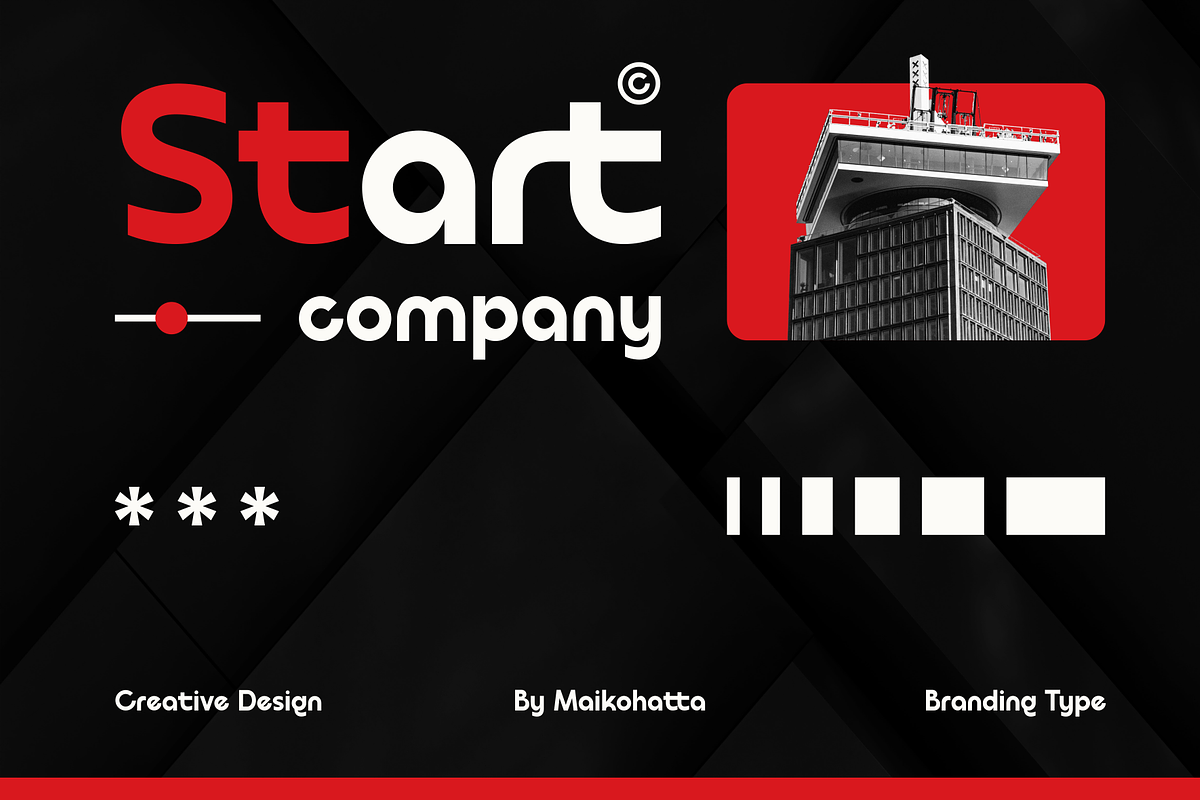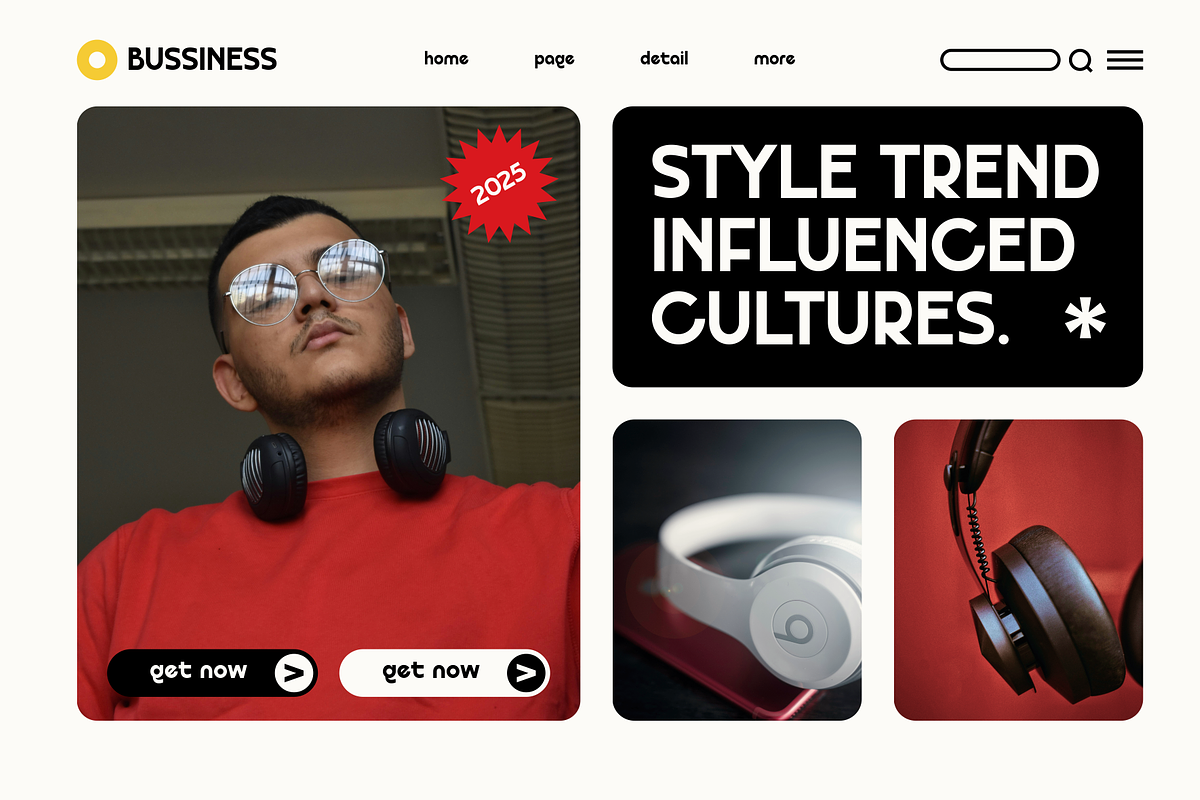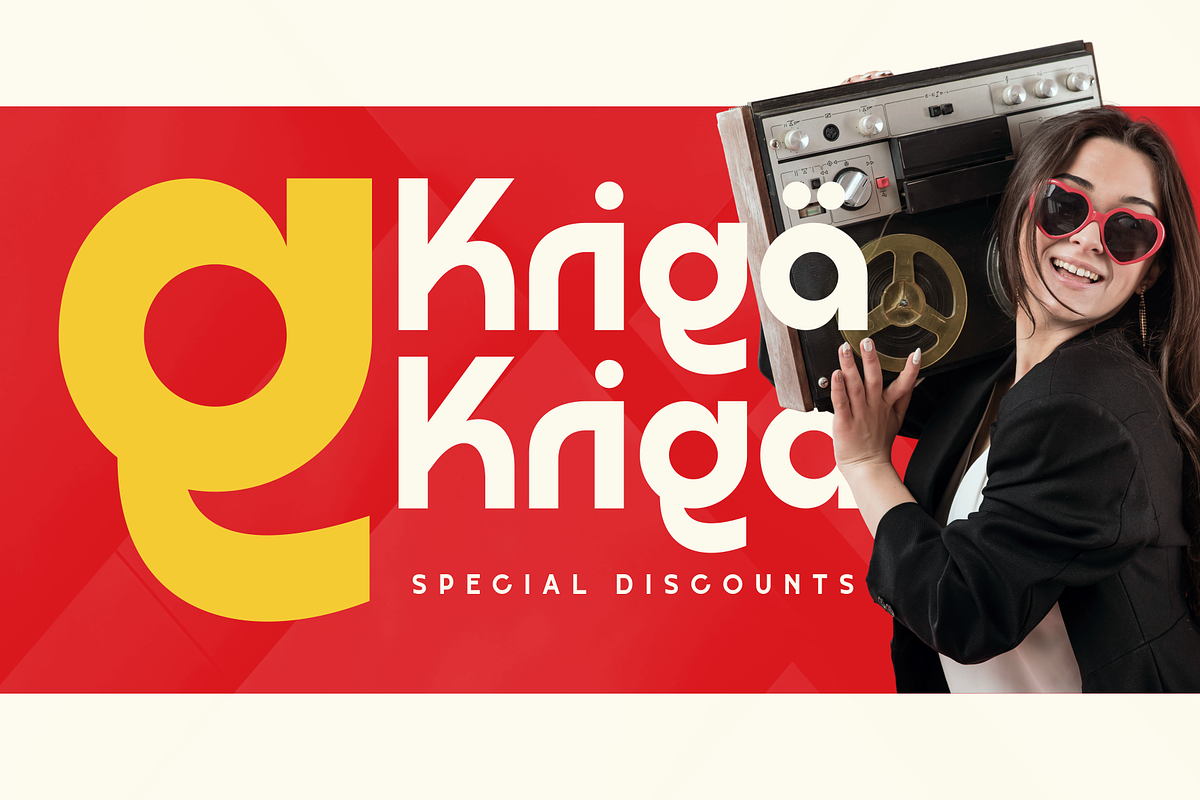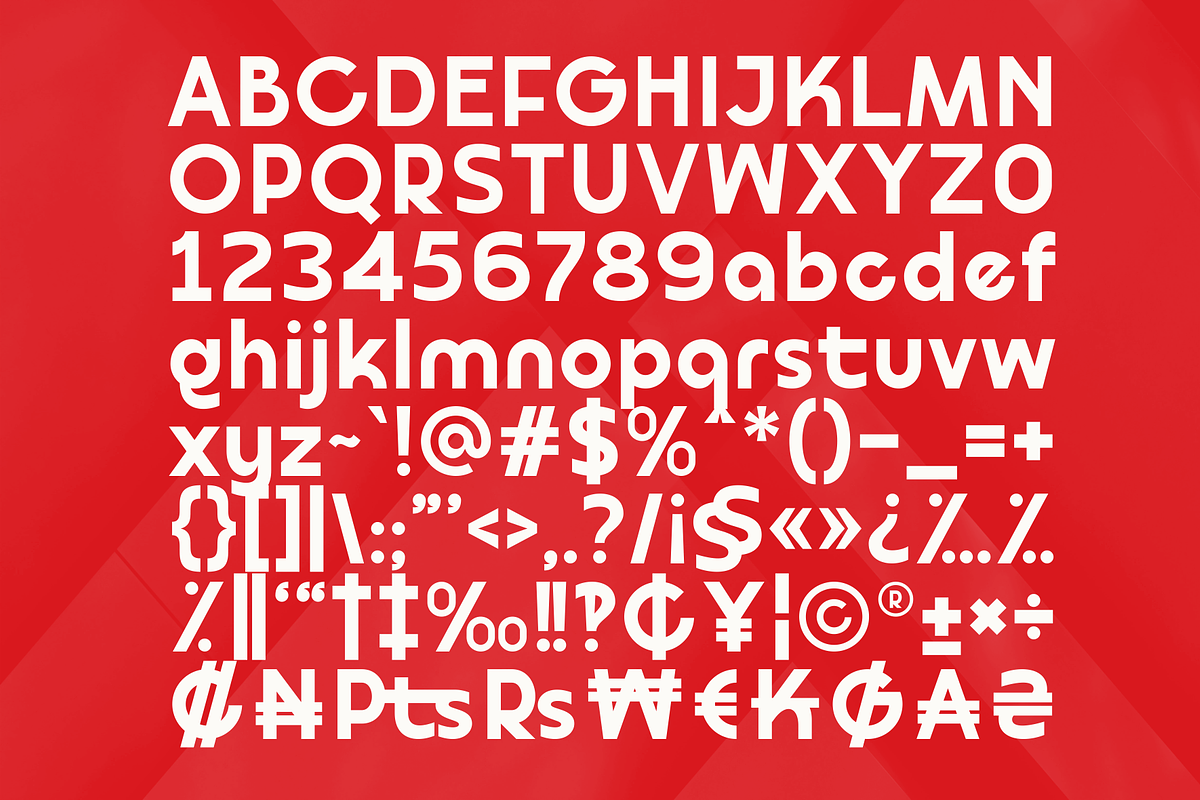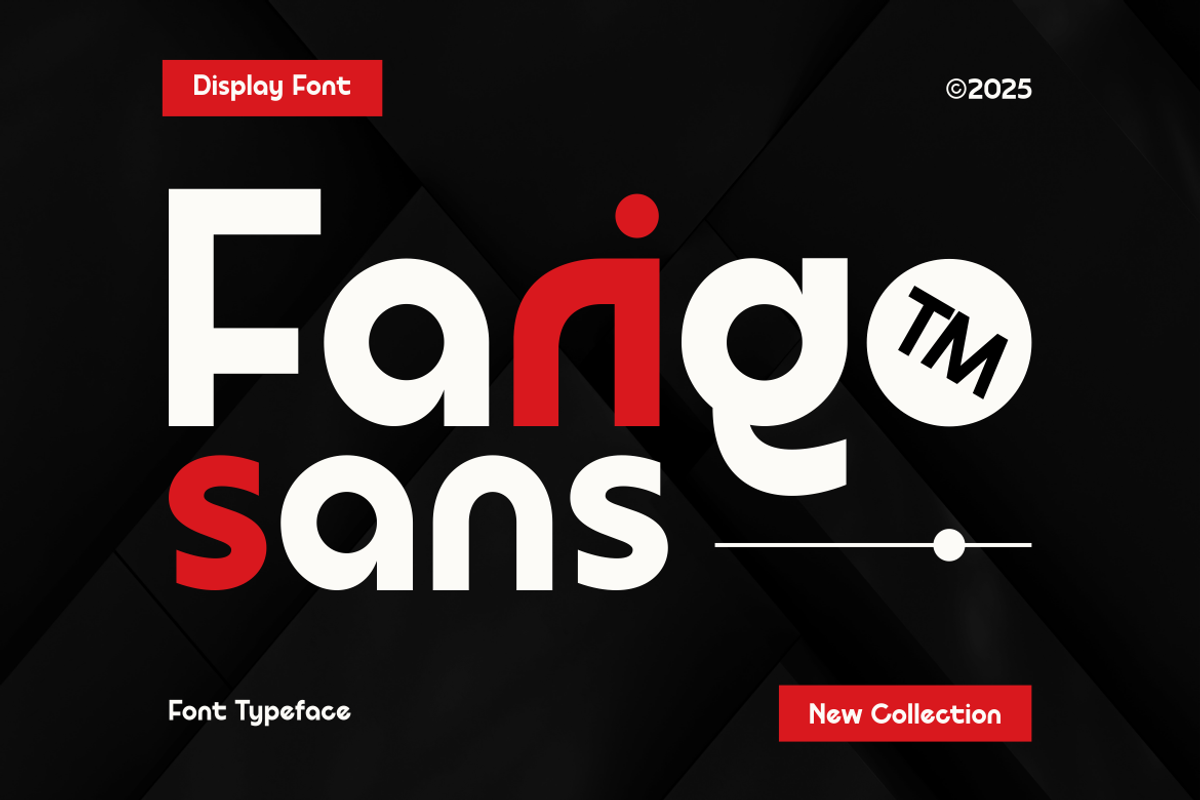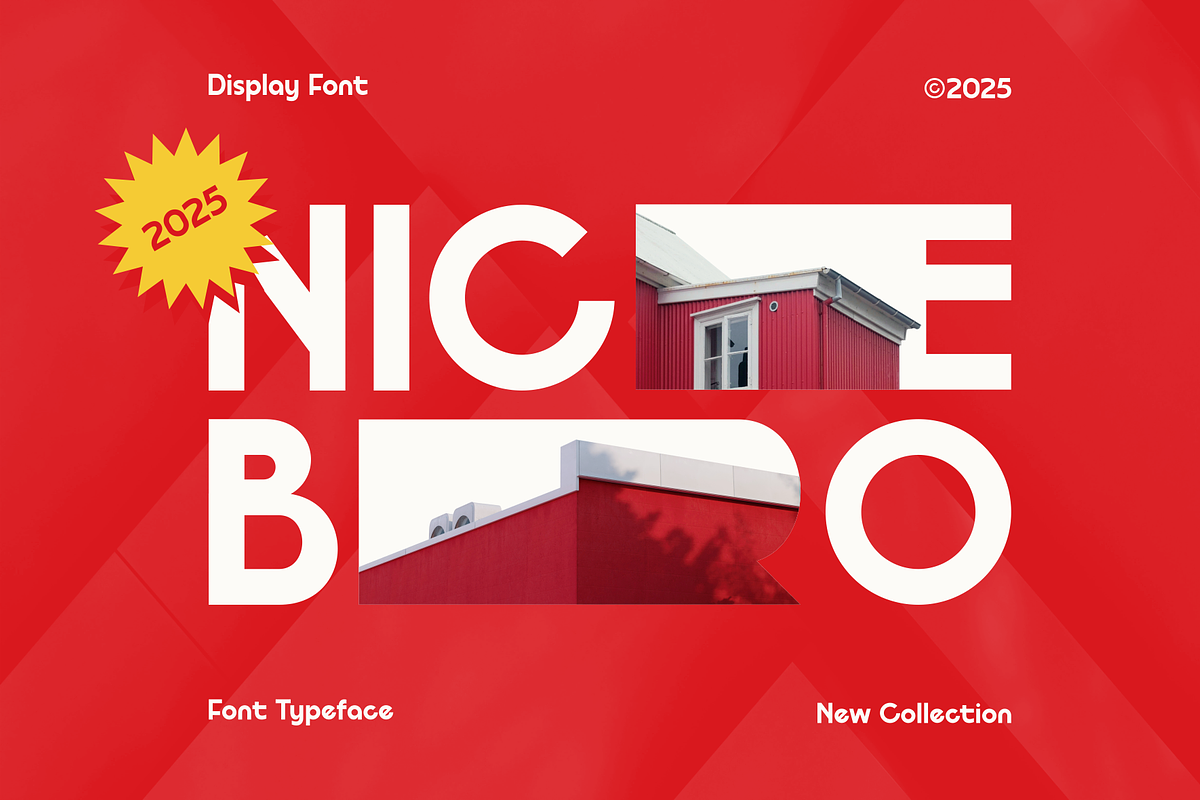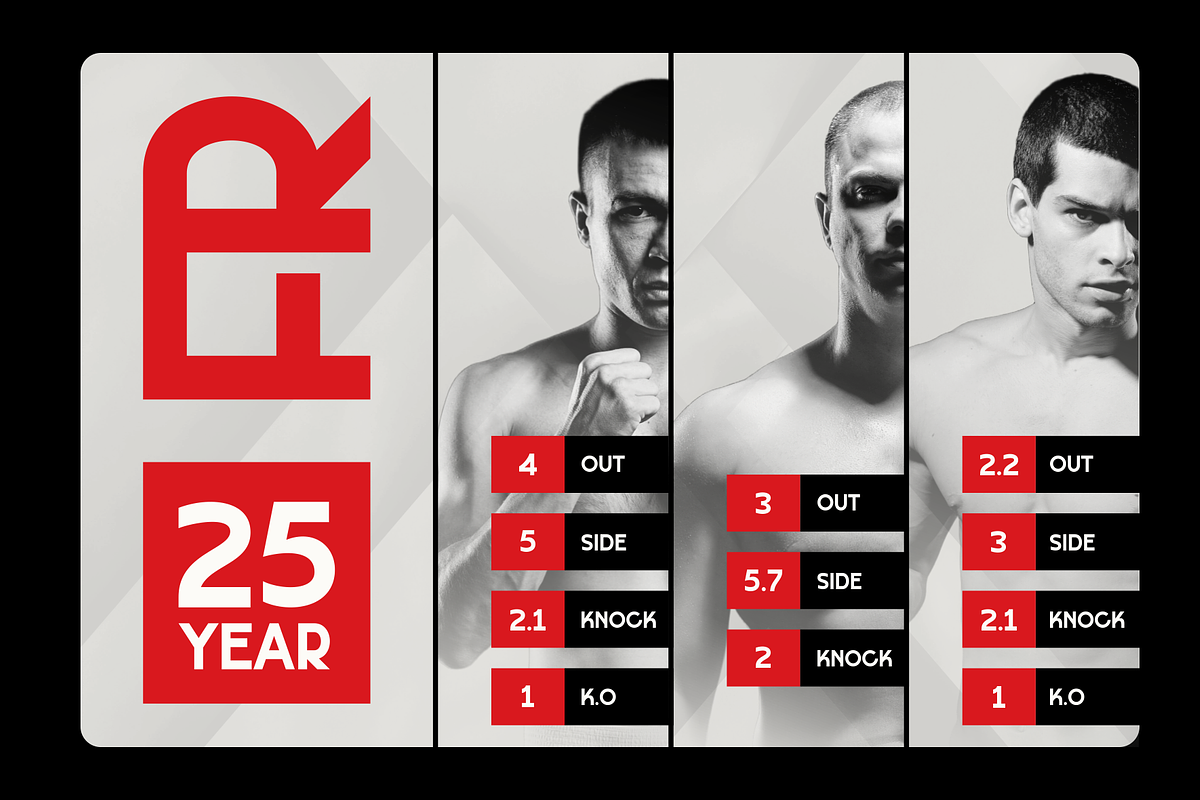
Farigo - Modern Sans Serif Typeface
Introducing our new product Farigo - Modern Sans Serif Typeface
This Font is a very flexible choice and can be used in a variety of design contexts. Its ability to provide a clean, professional, contemporary look and its simplicity and visual appeal make this font good for use in the world of graphic design and modern typography.